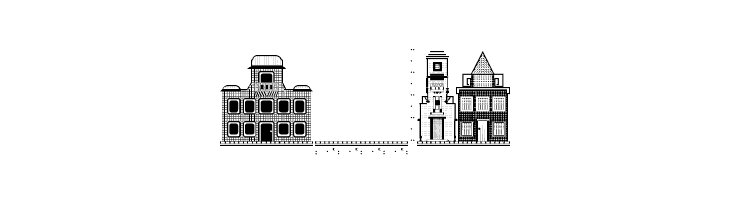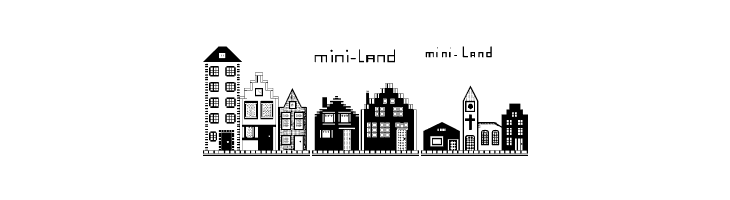
A decorative font composed of detailed house and building illustrations.
A display font made of illustrated buildings and houses.
A display font made of illustrated house and building silhouettes.